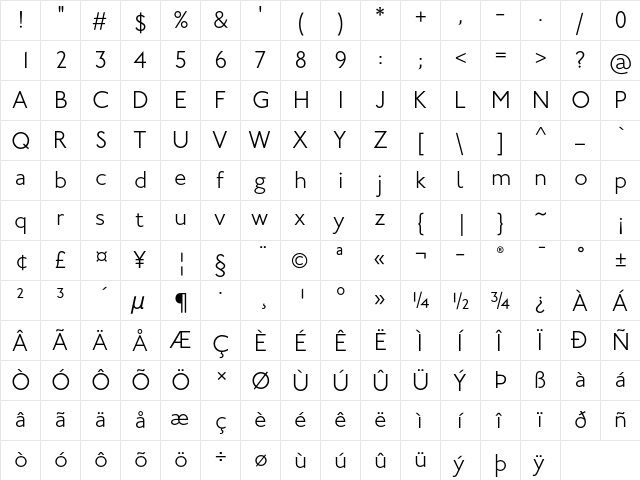
Johnston ITC Std Light
| Designer | Dave Farey and Richard Dawson |
Design Context for Johnston ITC Std Typeface
Johnston ITC Std offers clean, dependable letterforms without strong stylistic allegiance, making it a practical choice for designers who need flexibility. The delicate stroke weight brings airiness and refinement to layouts.